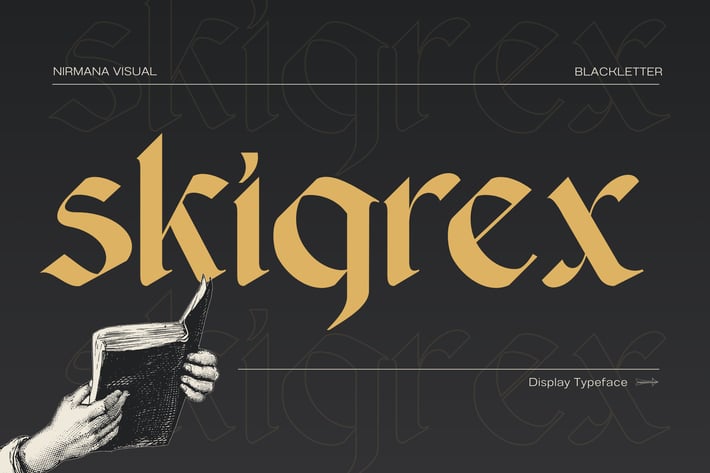
Skigrex Gothic - Logo Blackletter Font
Skigrex Gothic offers beautiful typographic harmony for a diversity of design projects, including logos & branding, social media posts, advertisements & product designs.